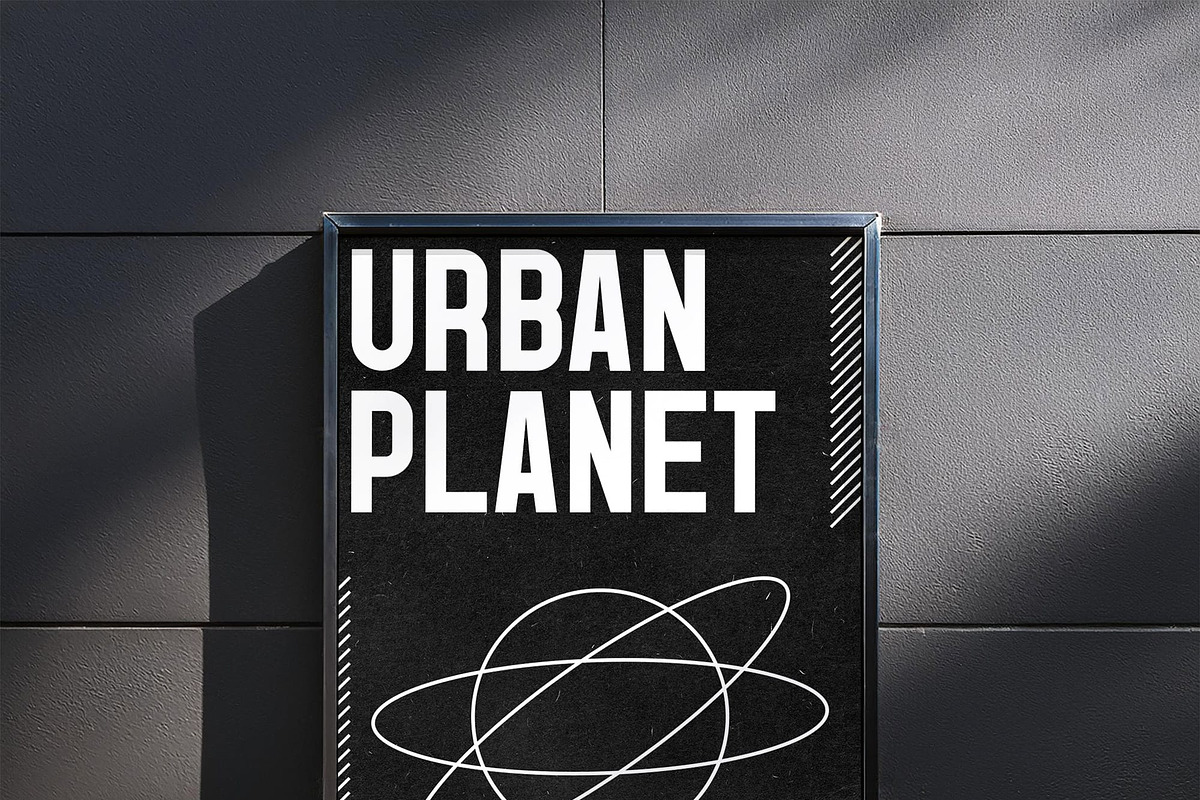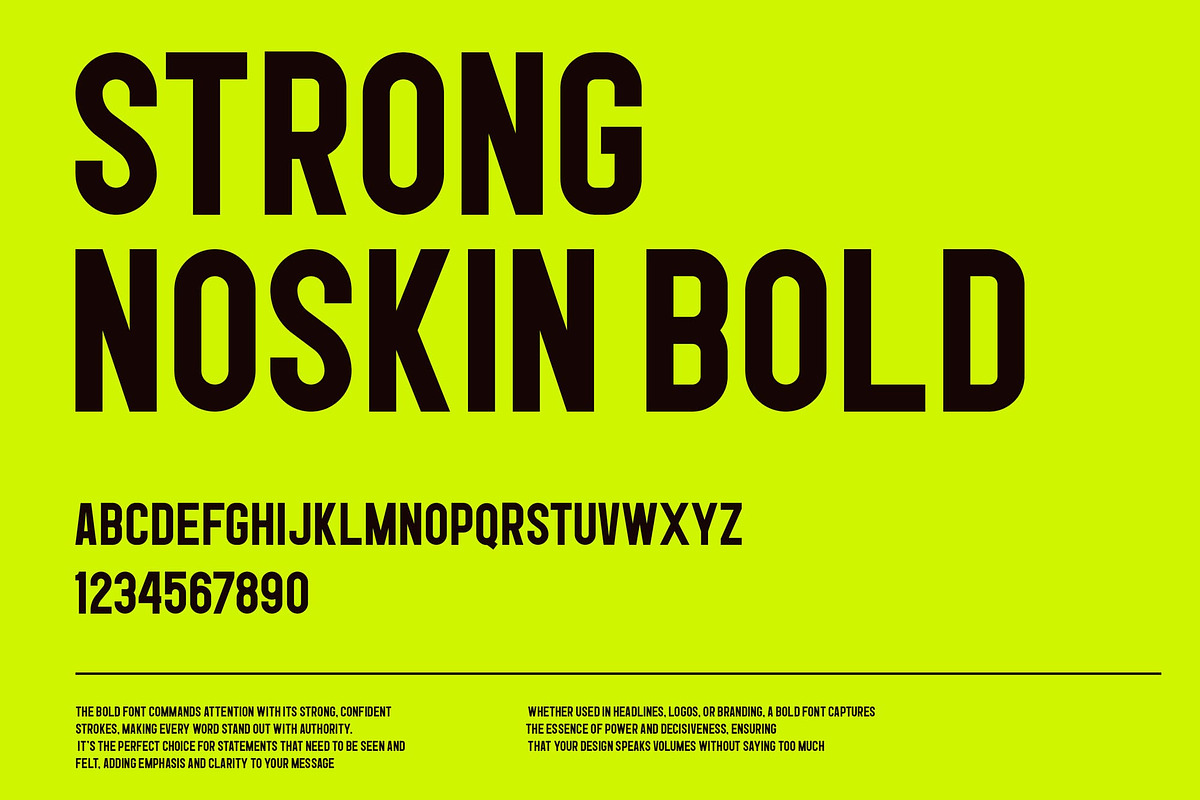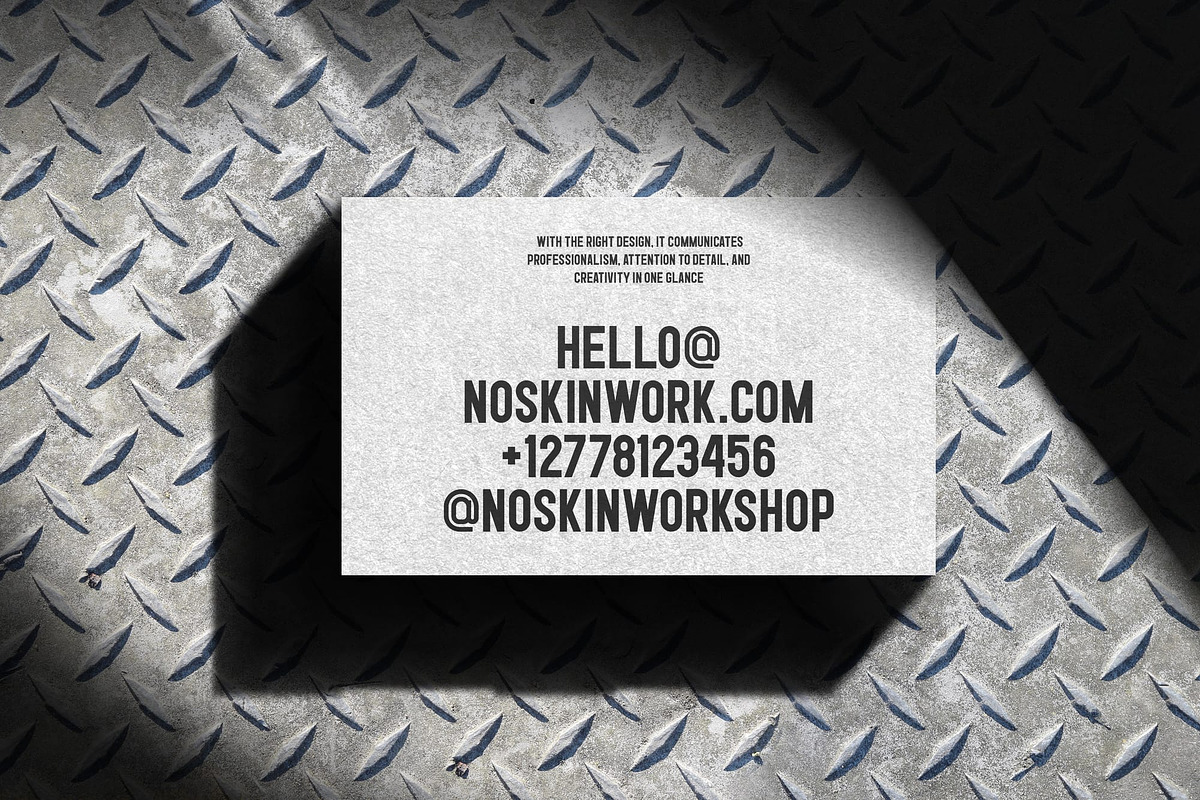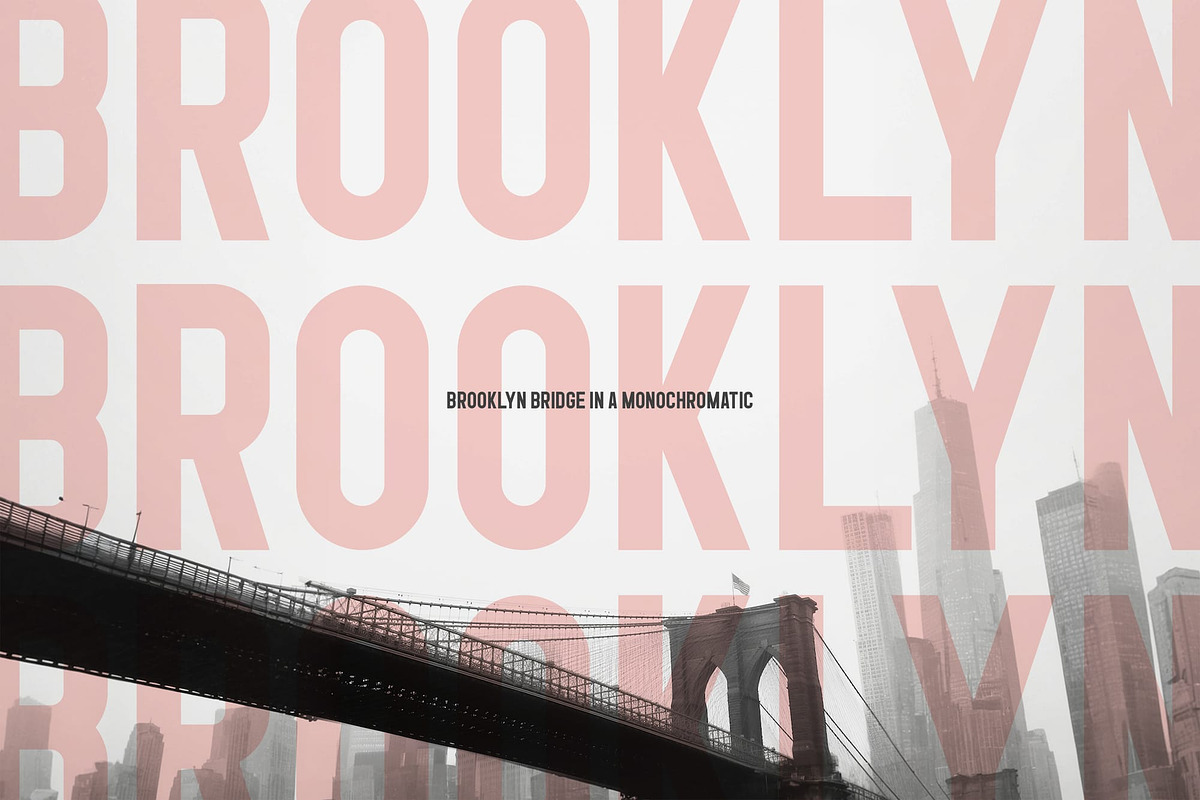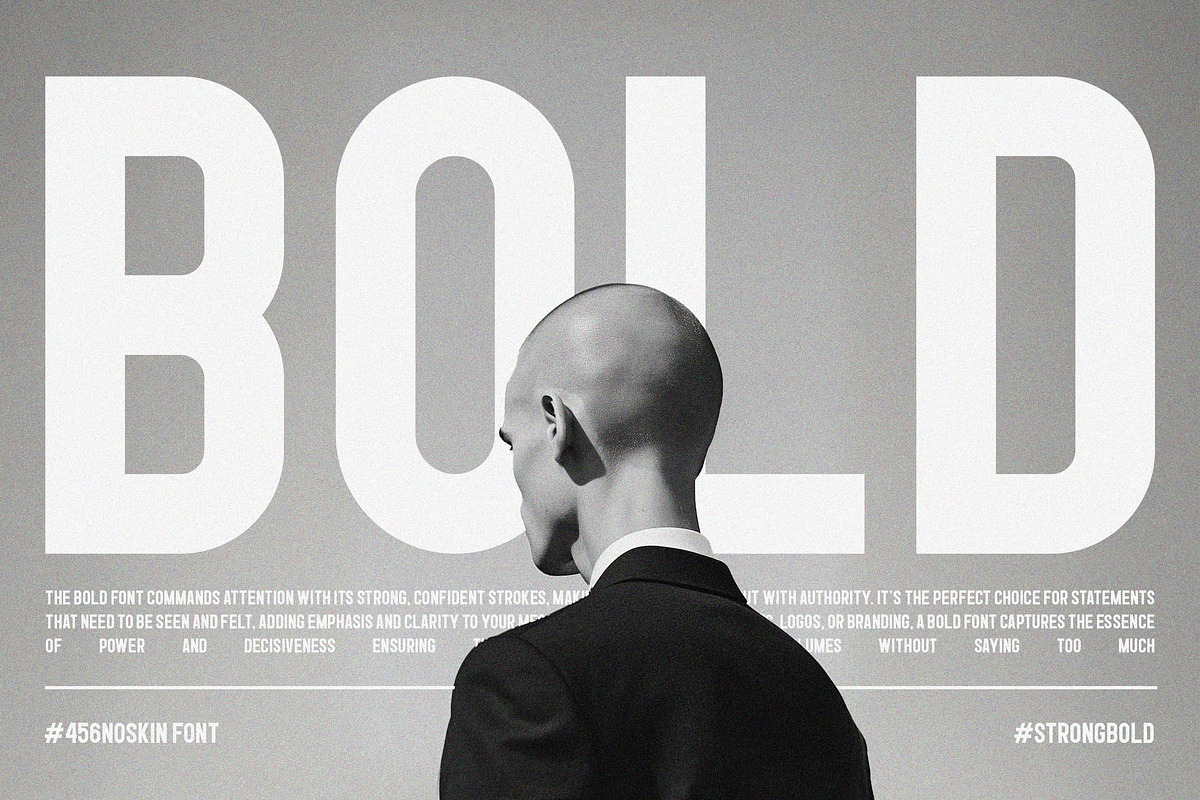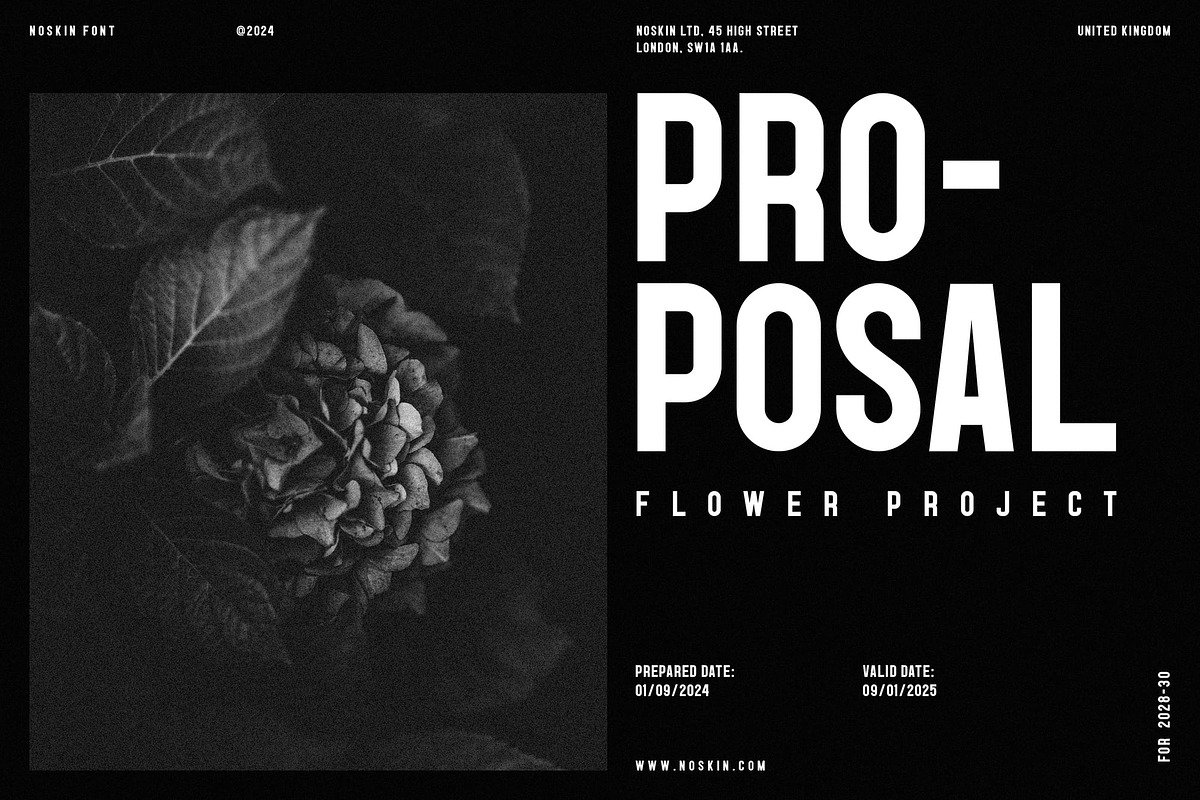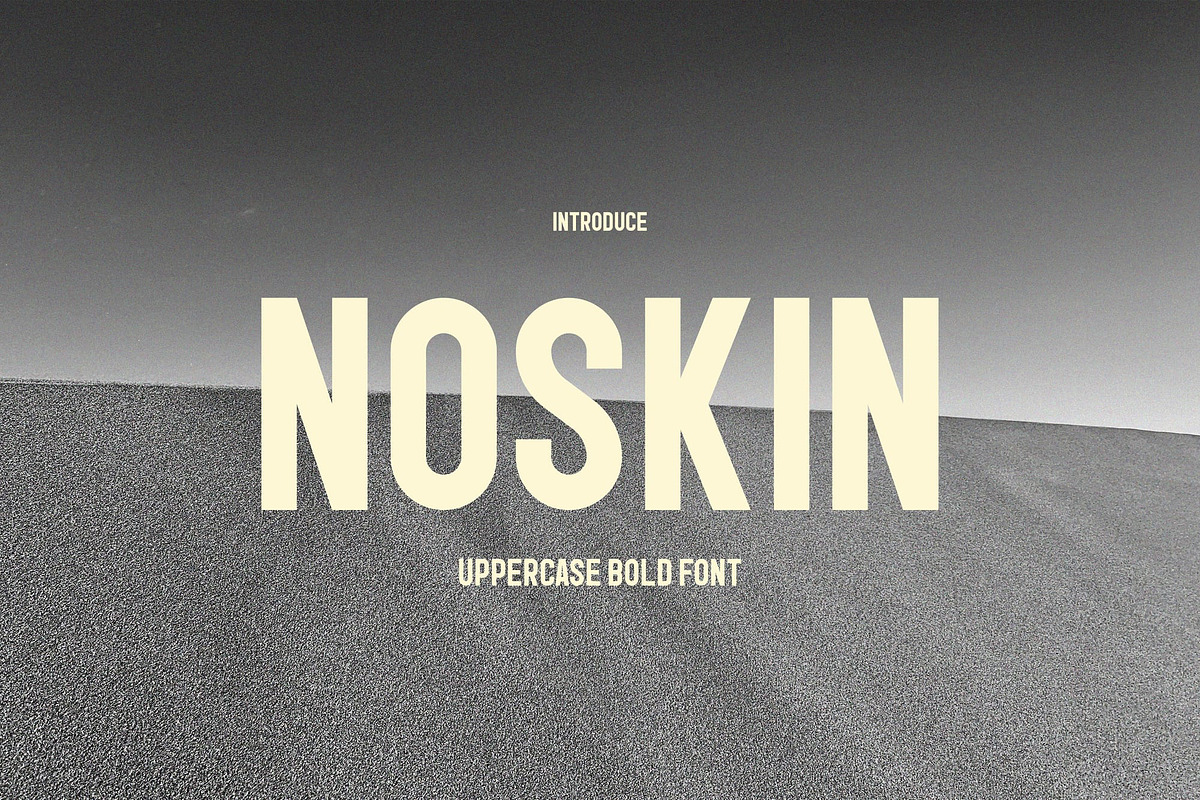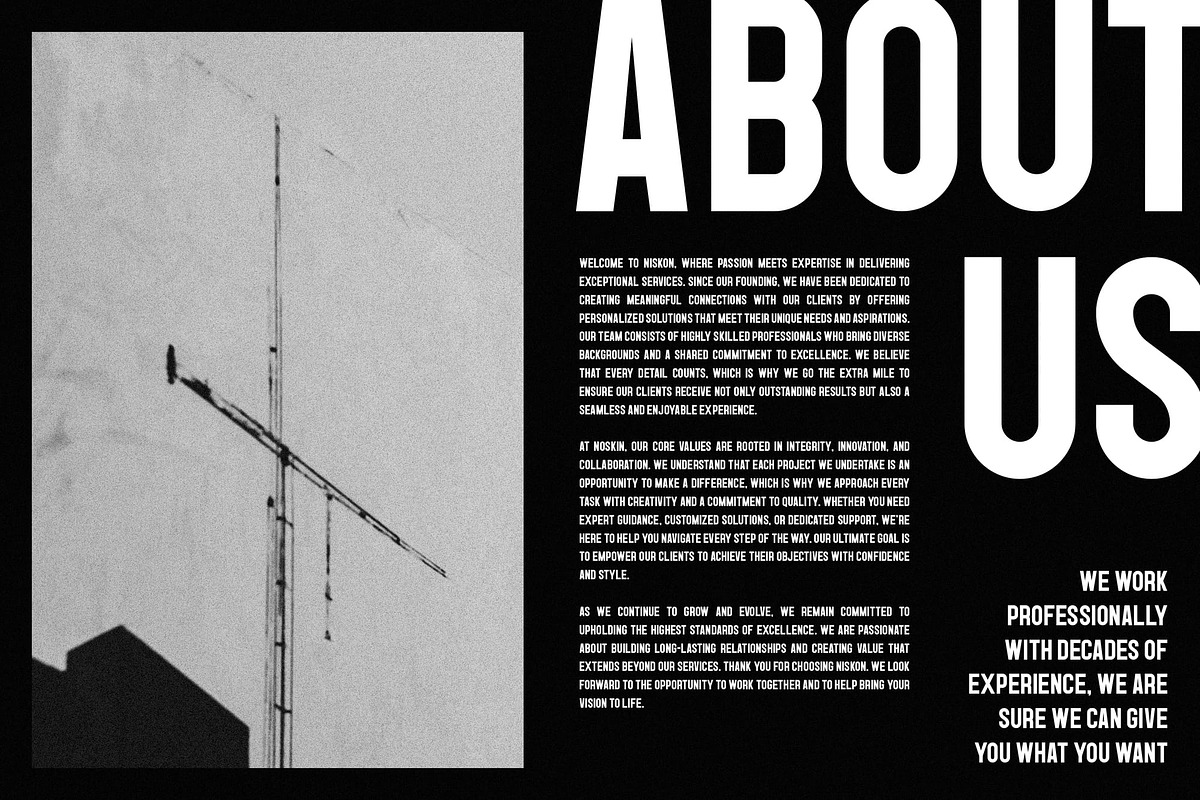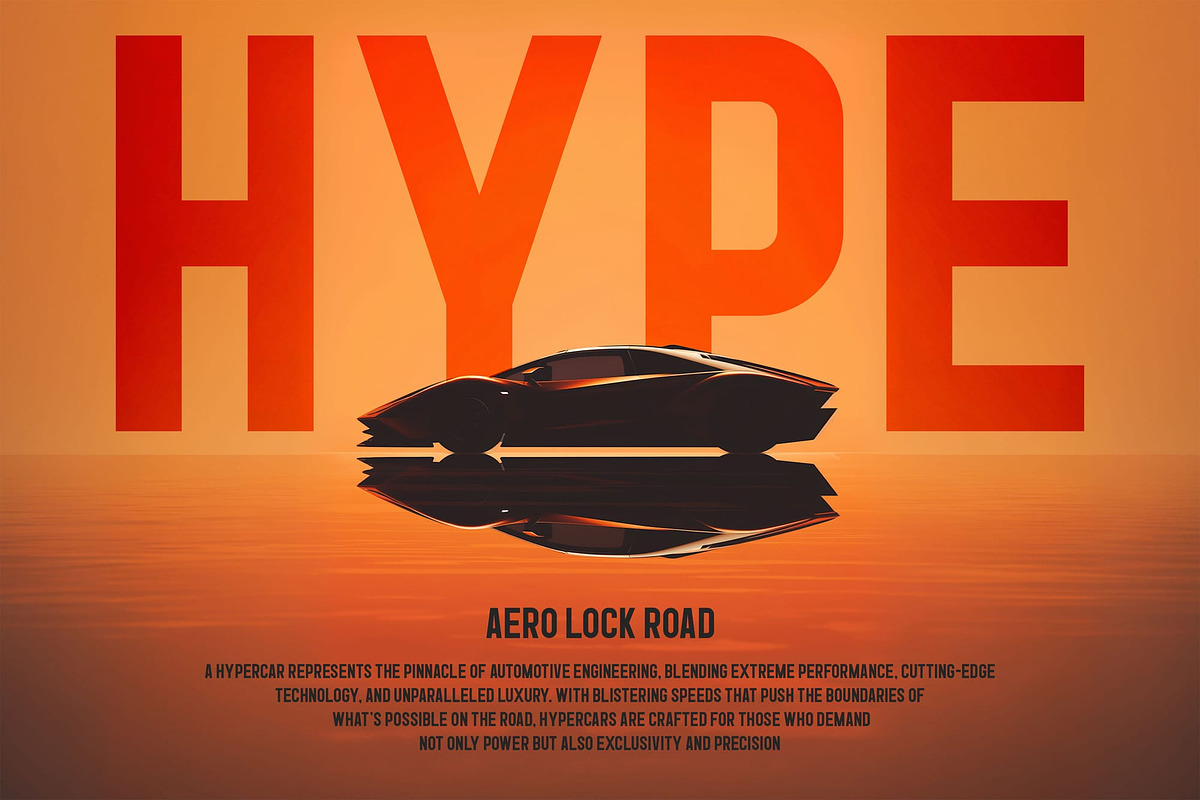
Noskin
Introducing Noskin, a bold, uppercase font that embodies modern style and sophistication. Its striking design is perfect for making a statement in any project, from branding to advertising. Noskin's stylish lines and contemporary feel ensure that it stands out, making it an ideal choice for designers seeking a dynamic typeface that captures attention and elevates creativity.